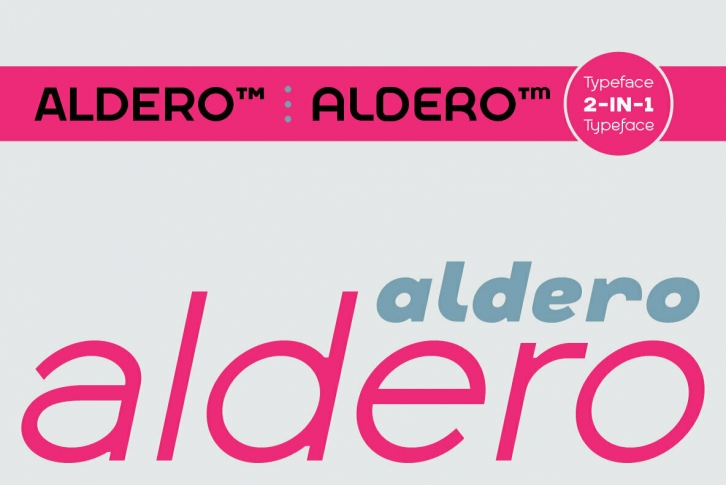
Aldero™ strives to be as useful to any design environment as Alder trees are to the forest. Native to British Columbia, Canada, Alder is vital to the woods all year round. Wildlife and insects feed on Alder leaves and seeds. The tree also provides shelter for animals in winter while its shades keep streams from getting too hot in summer. The trunks and branches are excellent habitats for lichens and mosses. The nitrogen-rich leaves help fertilize the soil where they landed, which benefits other tree species nearby. Alder’s utilitarian nature inspires us to create Aldero™, a handy, versatile, go-to type family for all professional designers.
To achieve what we set out to do, we gave Alderoâ„¢ the two-in-one looks, doubled the sets of ligatures, and loaded it with plenty more of Opentype features. We put in long hours, months after months, until we are proud of the outcome. And we truly believe that you will enjoy working with this typeface as much as we do.
With five weights, ten styles, and 1,100+ glyphs per style, this versatile typeface comes with virtually two looks. The standard glyph set is perfect for formal, corporate design, while the stylistic alternate set elicits a fun, friendly, and casual feel. You can use each style separately or mix and match them to achieve your design aesthetic. Thanks to these options, a wide range of design possibilities are at your fingertips.
In addition to the two large sets of ligatures (for both the standard and the stylistic glyph sets), we also pack tons of Opentype features into Aldero™ to improve your user experience while working with this typeface. To activate the case-sensitive features, for example, highlight the phrase with the type tool, then hit the “All Caps†button; or select each mark, punctuations, or symbols with the type tool, then choose the case-sensitive option from the Opentype popup window. Hope you enjoy working with Aldero™ as much as we do!